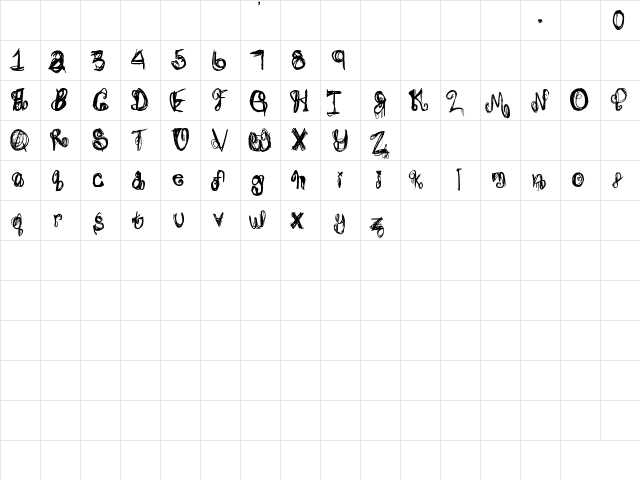
Jade's Psychosis Regular Font Preview
Jade's Psychosis Regular
Design Context for Jade's Psychosis Typeface
Jade's Psychosis is a composed and adaptable typeface that performs quietly and consistently across a wide range of design contexts.